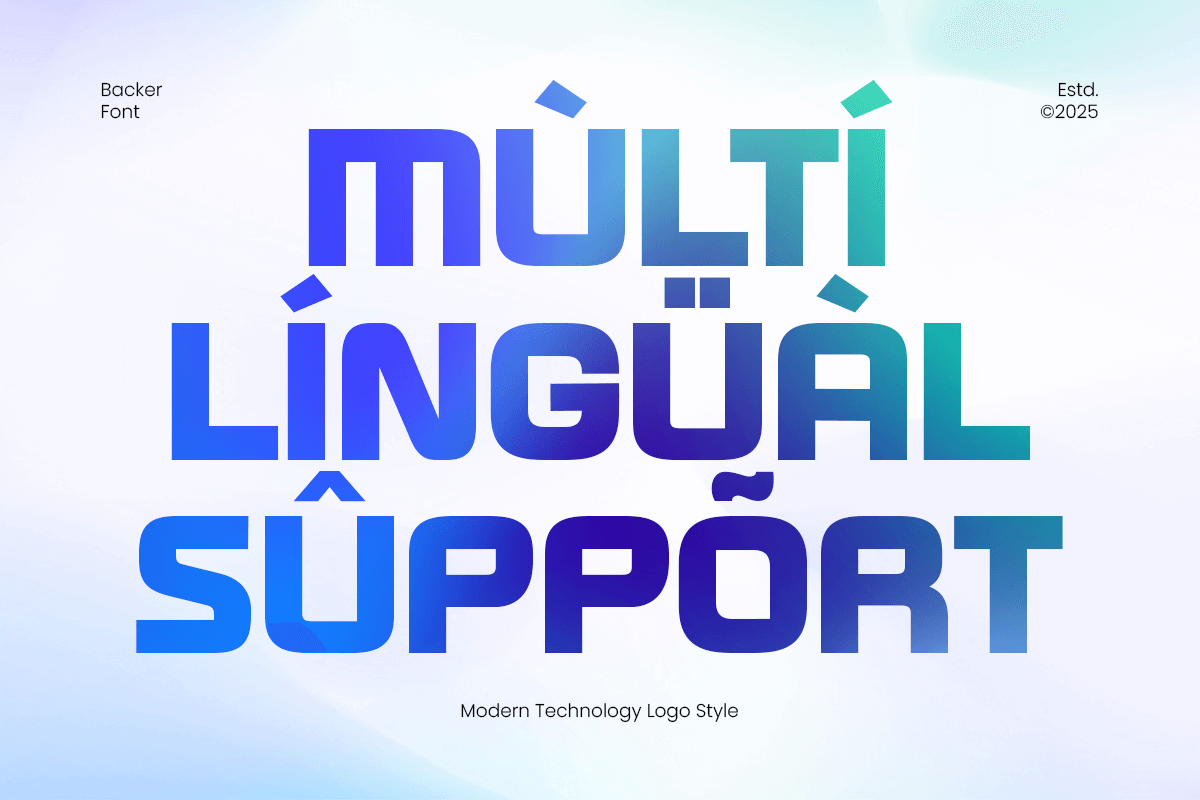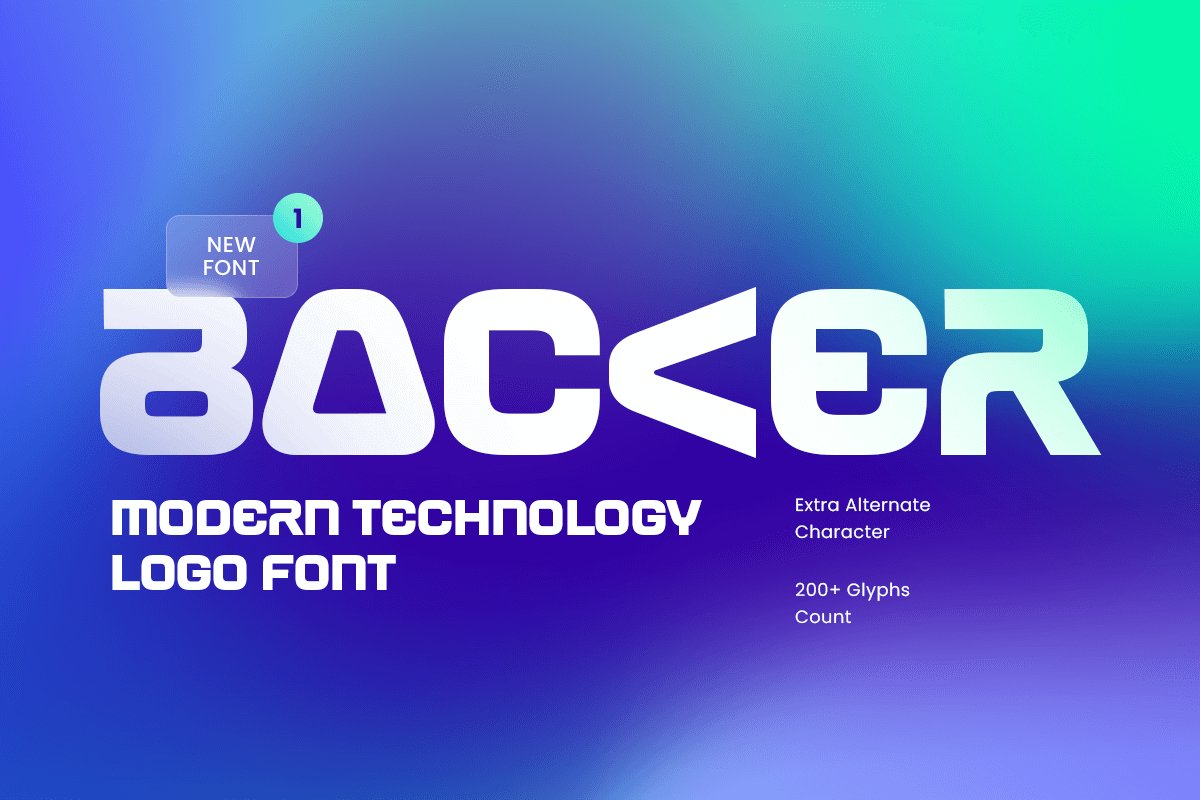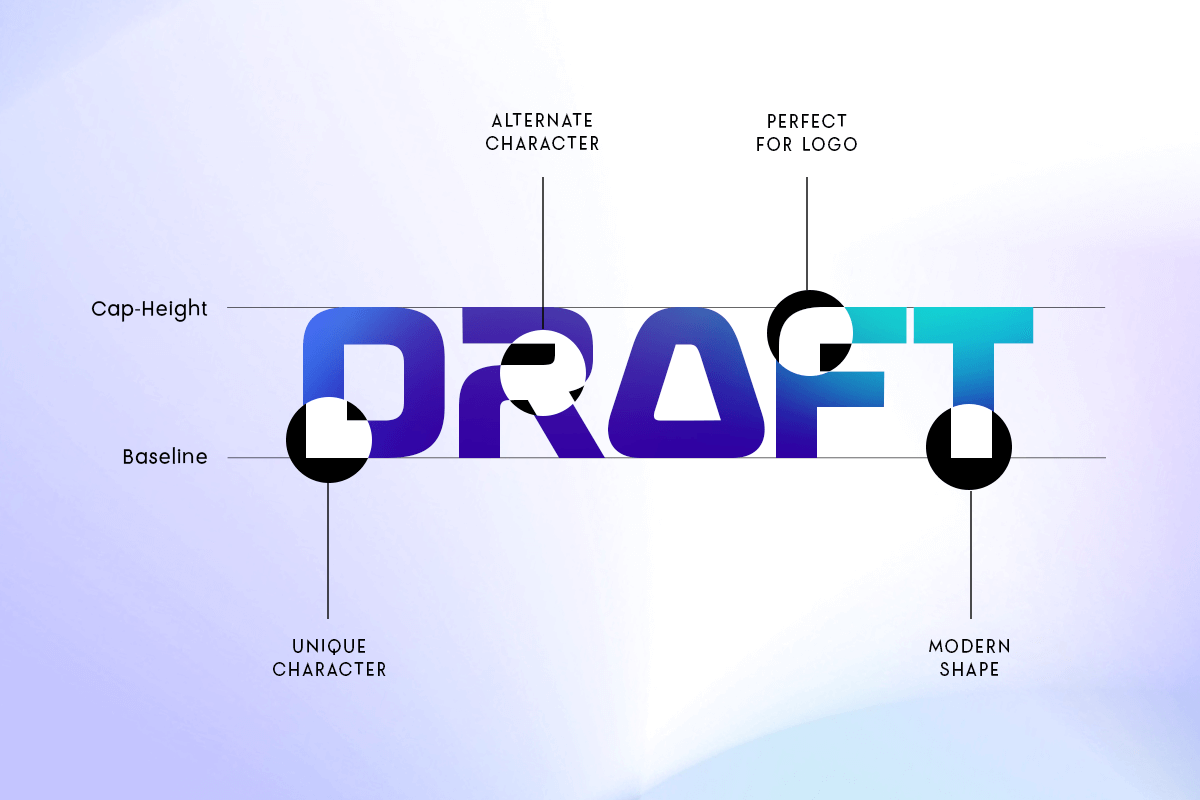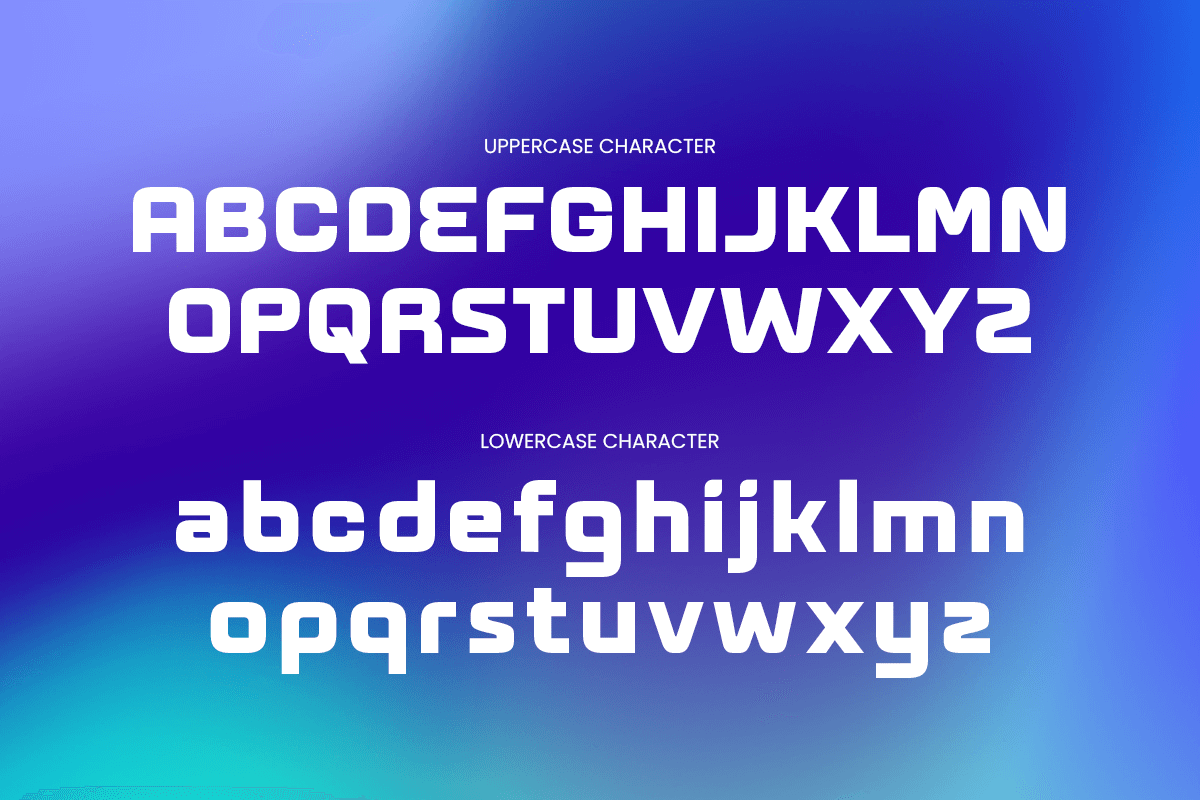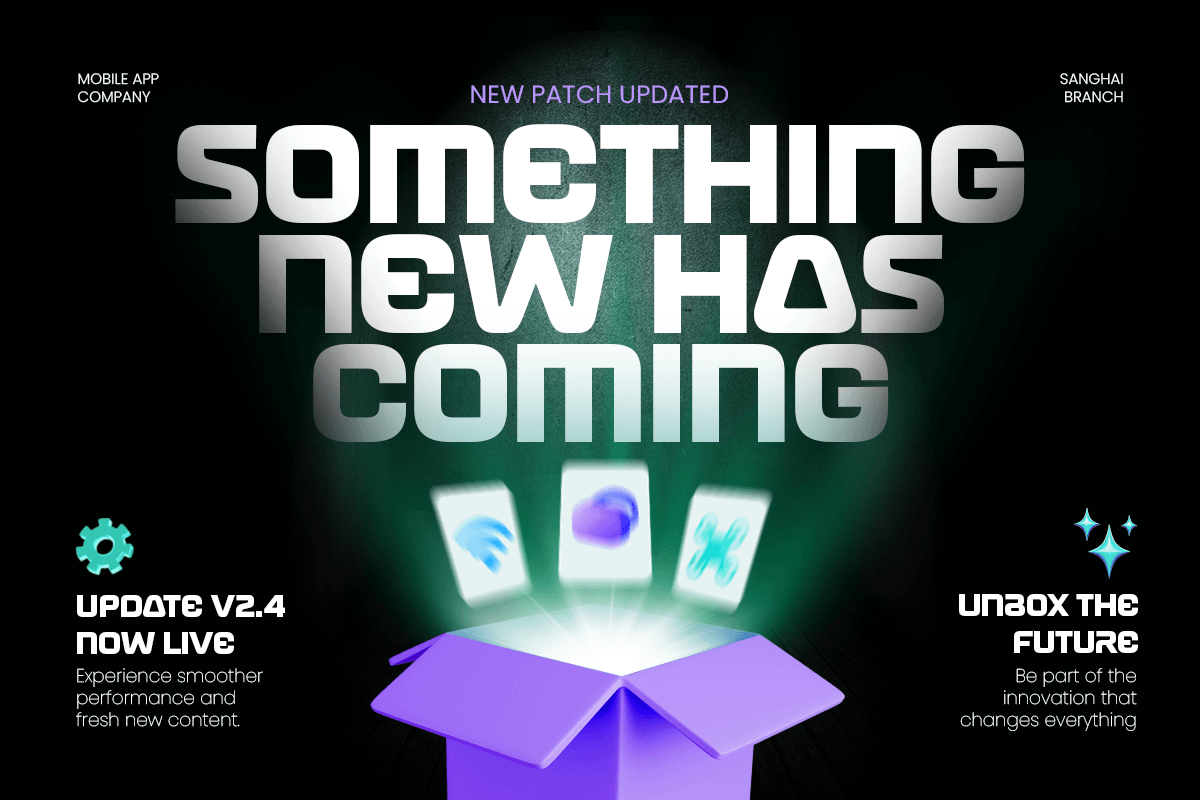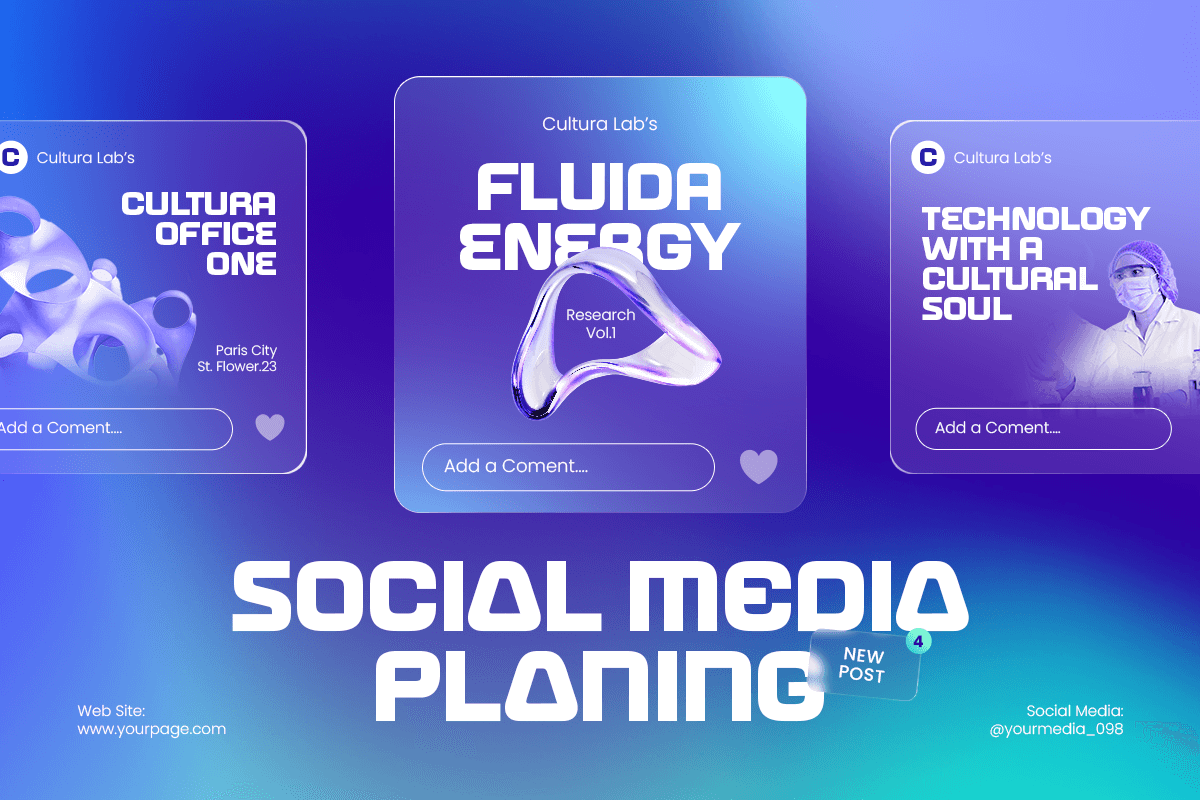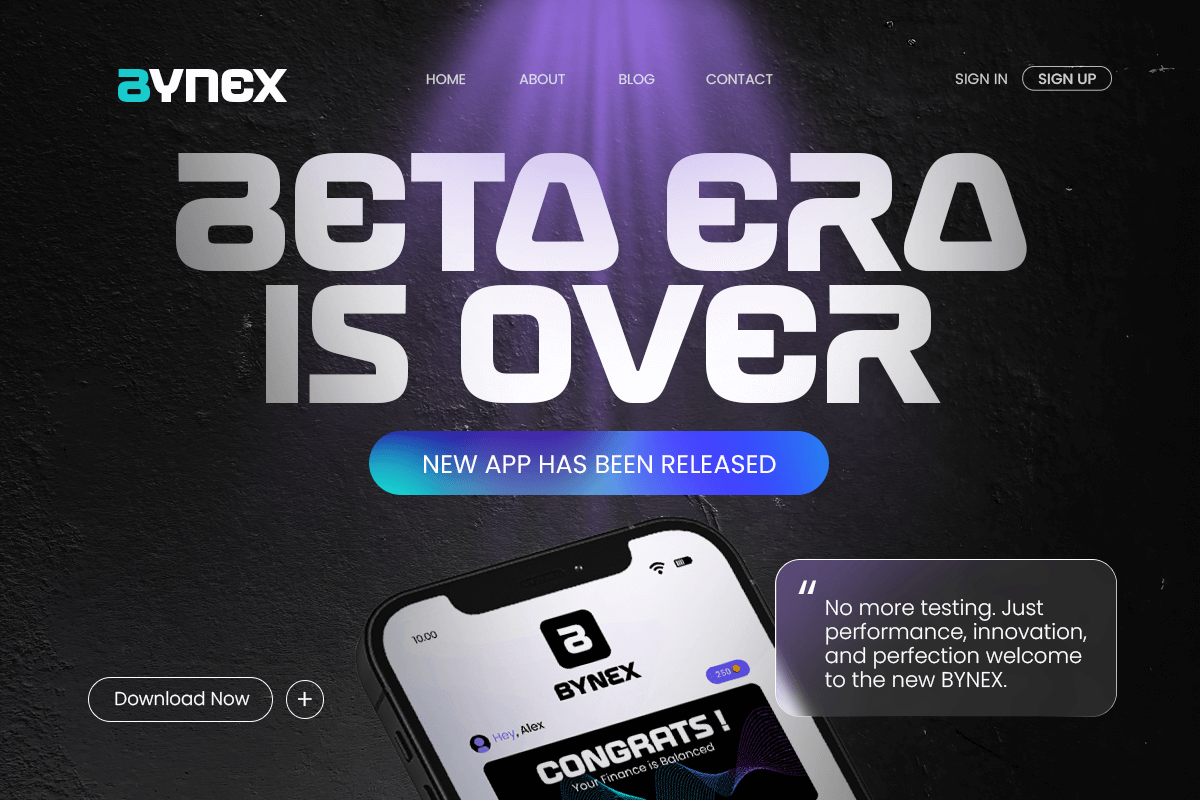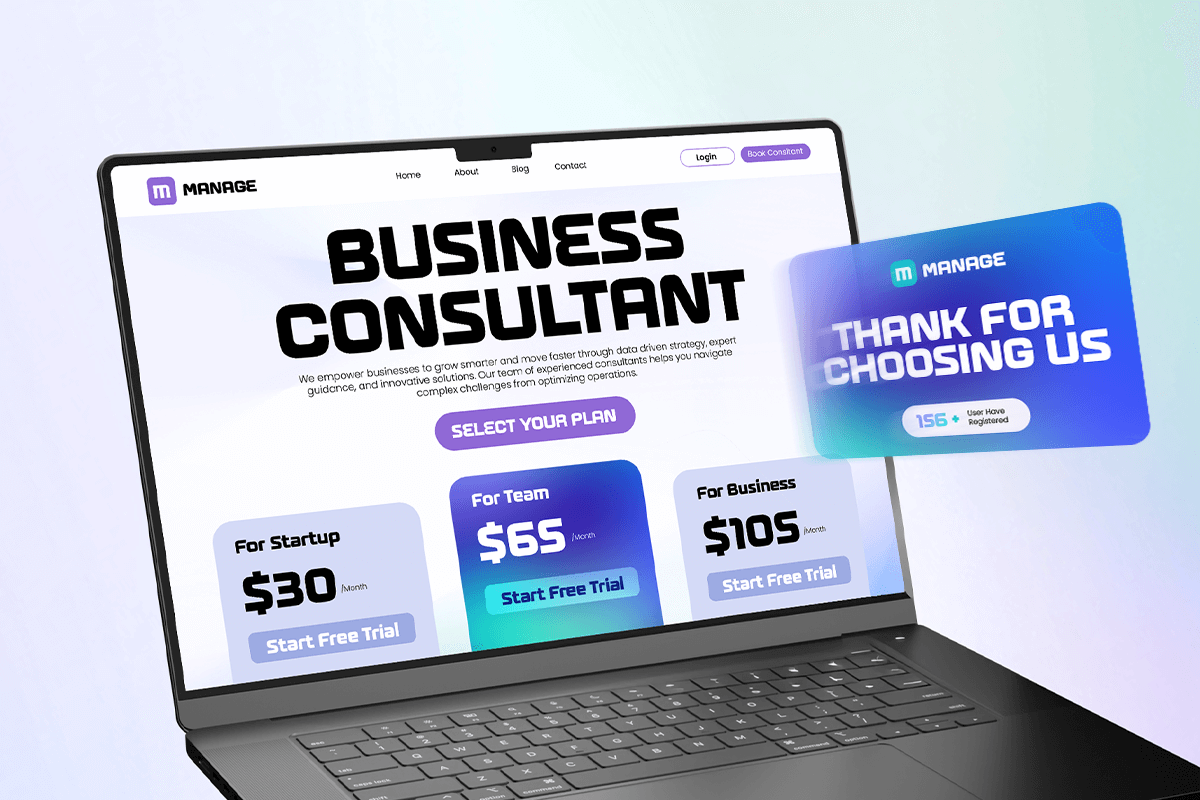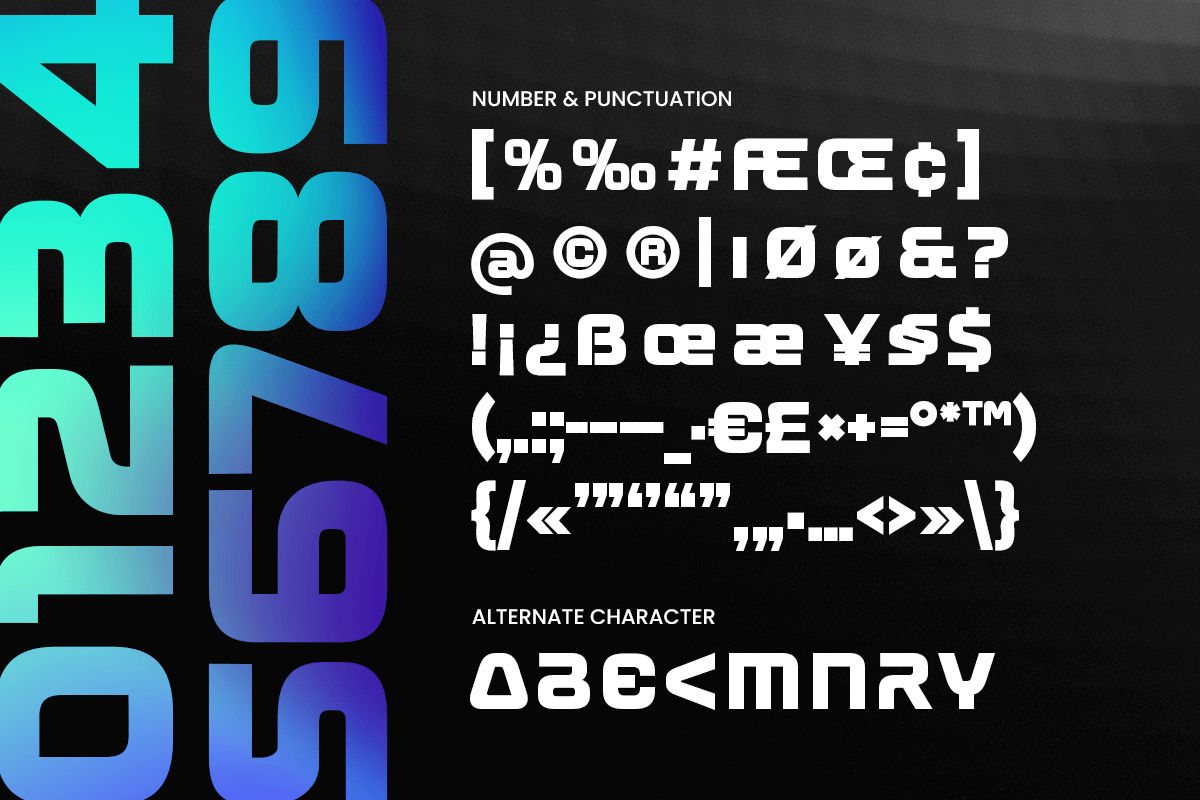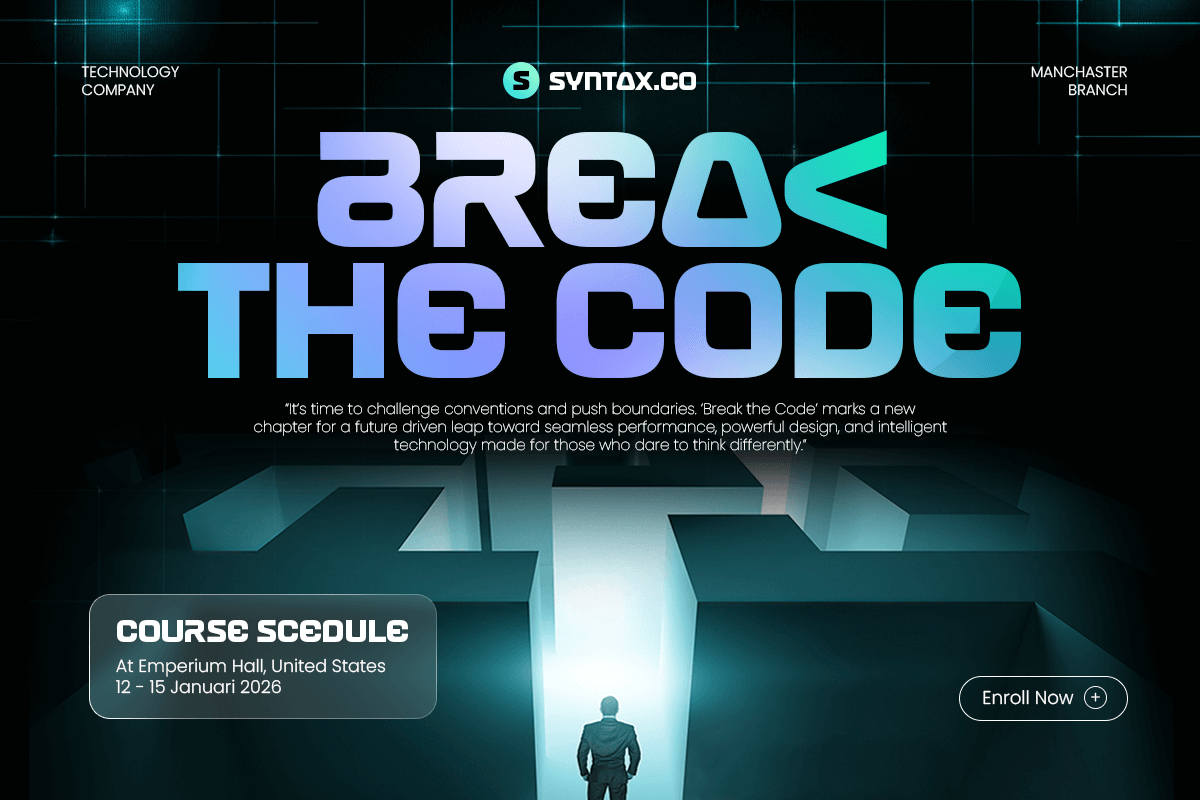
Backer - Modern Technology Logo Font
Backer – Modern Technology Logo Font
Backer is a sharp and futuristic logo font built for technology brands, digital startups, and innovative products. With clean geometric construction and modern letter shapes, Backer delivers a professional tech-forward look that stands out in logos, UI design, app branding, packaging, and corporate identity systems.
The font blends precision and minimalism, creating a sleek aesthetic that enhances clarity and brand recognition. Backer is designed for designers who need a strong, modern, and elegant technology font that communicates innovation and trust.
Backer – Modern Technology Logo Font Features:
* Modern geometric style for tech and digital branding
* Perfect for logos, product identity, UI/UX, and corporate visuals
* Uppercase, lowercase, numerals, and punctuation included
* Clean construction with optimized kerning
* Futuristic and professional look for innovative design projects
Build a powerful modern identity with Backer – the technology logo font crafted for forward-thinking brands.